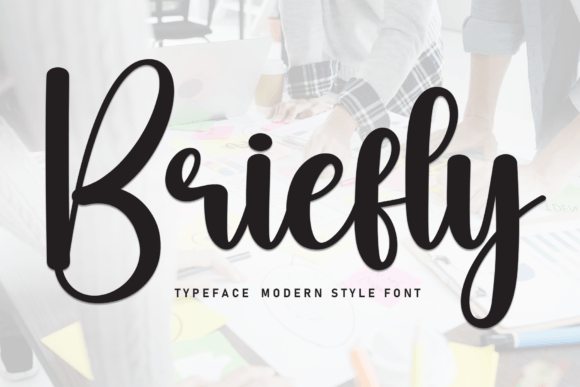
Prepare to be captivated by the exquisite Briefly font, a script font family that exudes elegance and sophistication. Designed by the talented andikastudio, Briefly is not just a font; it's an artistic expression that brings your designs to life.
With its charming curves and graceful strokes, Briefly dances across the page, adding a personal and heartfelt touch to your creations. Imagine your wedding invitations adorned with Briefly's delicate characters, conveying the love and joy of your special day in a way that words alone cannot express. Thank-you cards, quotes, and greeting cards take on a new level of elegance when graced with Briefly's presence, leaving a lasting impression on the recipients.
Briefly's versatility extends to logos and business cards, where it adds a touch of professionalism and creativity. It's the perfect choice for businesses looking to make a statement and stand out from the crowd. Every design that incorporates Briefly speaks volumes about your attention to detail and appreciation for the finer things in life.